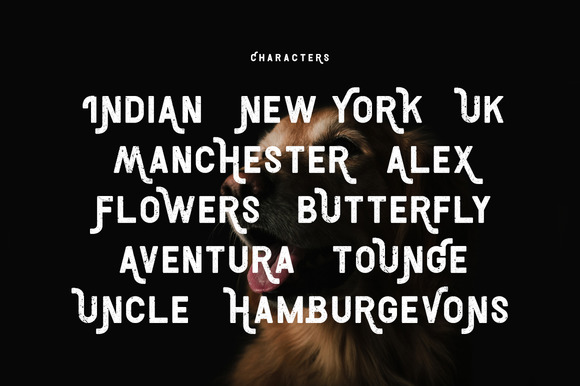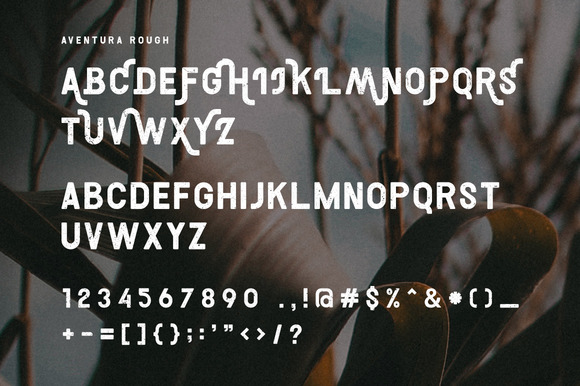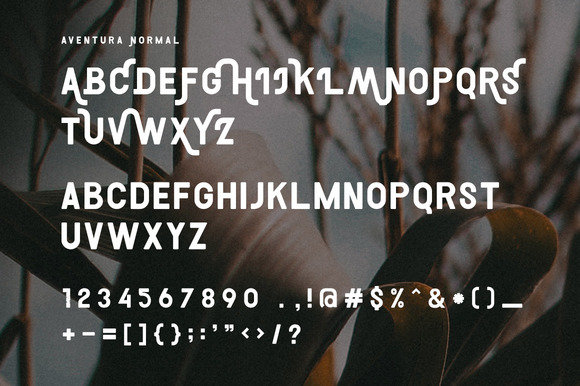
Aventura Font: A Vintage Sans Serif Inspired by Nature
Are you a designer or crafter looking for a unique and versatile font to elevate your creative projects? Look no further than Aventura Font, a vintage sans serif that comes with two exciting variations: Aventura Normal and Aventura Rough. In this article, we’ll dive into the world of Aventura Font, exploring its inspiration, features, and uses.
The Inspiration Behind Aventura Font
Aventura Font is inspired by nature, evoking the great outdoors and the sense of adventure that comes with it. The font’s creator aimed to capture the essence of the natural world, distilling it into a clean and modern sans serif design. The result is a font that is both earthy and elegant, perfect for projects that require a touch of sophistication and whimsy.
Aventura Normal and Aventura Rough: Two Variations, Endless Possibilities
Aventura Font comes in two variations: Aventura Normal and Aventura Rough. These two fonts are designed to be highly compatible, making them a great pair to combine in your creative projects. Aventura Normal is a clean and crisp font, ideal for headlines, titles, and body text. Aventura Rough, on the other hand, has a more textured and organic feel, perfect for adding a touch of rustic charm to your designs.
Key Features of Aventura Font
- Vintage sans serif design: Aventura Font boasts a classic sans serif design with a vintage twist, making it perfect for projects that require a retro or nostalgic feel.
- Two font variations: Aventura Normal and Aventura Rough offer endless possibilities for creative experimentation and combination.
- Inspired by nature: The font’s natural inspiration makes it ideal for projects related to outdoor activities, environmentalism, or sustainability.
- Highly legible: Aventura Font is designed to be highly legible, making it perfect for body text, headlines, and titles.
Using Aventura Font in Your Creative Projects
Aventura Font is an incredibly versatile font that can be used in a wide range of creative projects, including:
- Branding and logos: Aventura Font’s unique design makes it perfect for creating memorable logos and brand identities.
- Headlines and titles: The font’s clean and crisp design makes it ideal for headlines, titles, and headings.
- Body text: Aventura Font’s high legibility makes it suitable for body text, ensuring that your readers can easily follow your message.
- Packaging and labels: The font’s vintage feel makes it perfect for packaging and labels that require a touch of nostalgia or retro charm.
Tips for Combining Aventura Normal and Aventura Rough
Combining Aventura Normal and Aventura Rough can add depth and visual interest to your designs. Here are some tips to get you started:
- Use Aventura Normal for body text: The clean design of Aventura Normal makes it perfect for body text, ensuring that your readers can easily follow your message.
- Use Aventura Rough for headlines: The textured feel of Aventura Rough makes it ideal for headlines, adding a touch of rustic charm to your designs.
- Experiment with font sizes and weights: Play around with different font sizes and weights to create visual hierarchy and add emphasis to your text.
Aventura Font is a unique and versatile font that is perfect for designers and crafters looking to add a touch of vintage charm to their creative projects. With its two exciting variations, Aventura Normal and Aventura Rough, this font offers endless possibilities for creative experimentation and combination. Whether you’re working on a branding project, creating a logo, or designing packaging, Aventura Font is sure to inspire and elevate your designs.